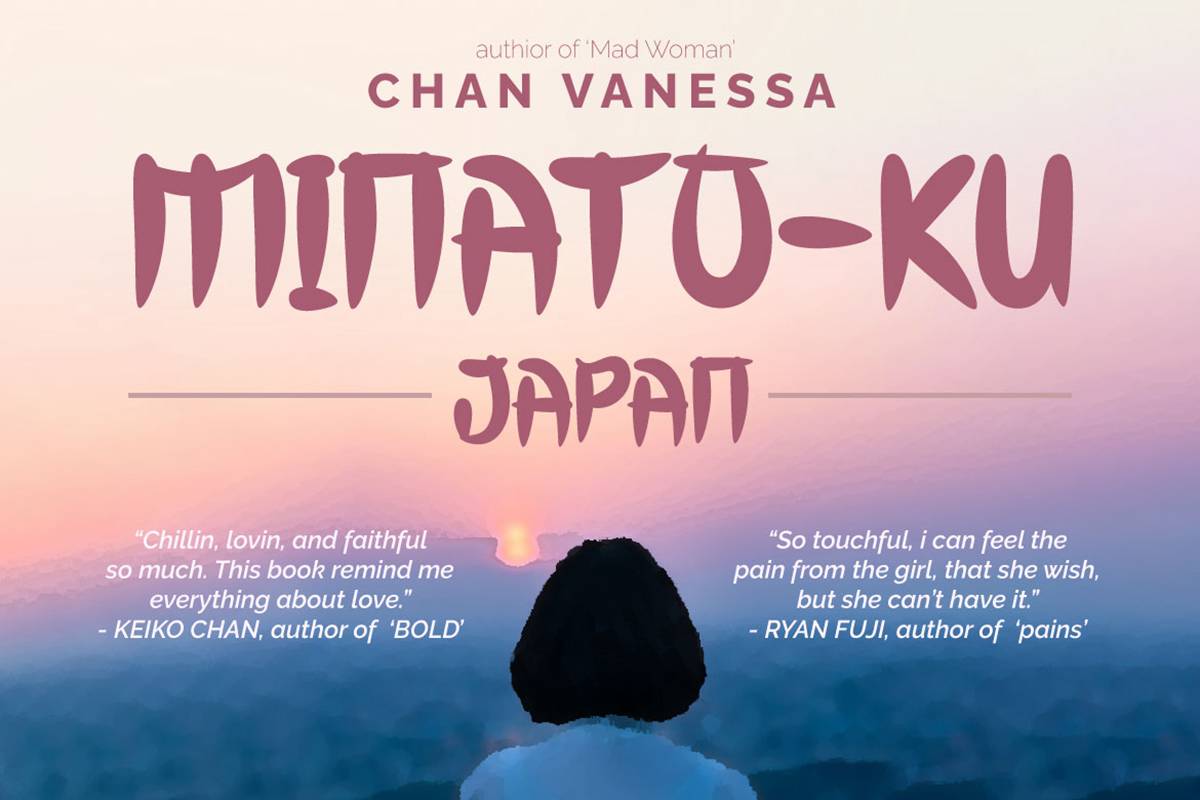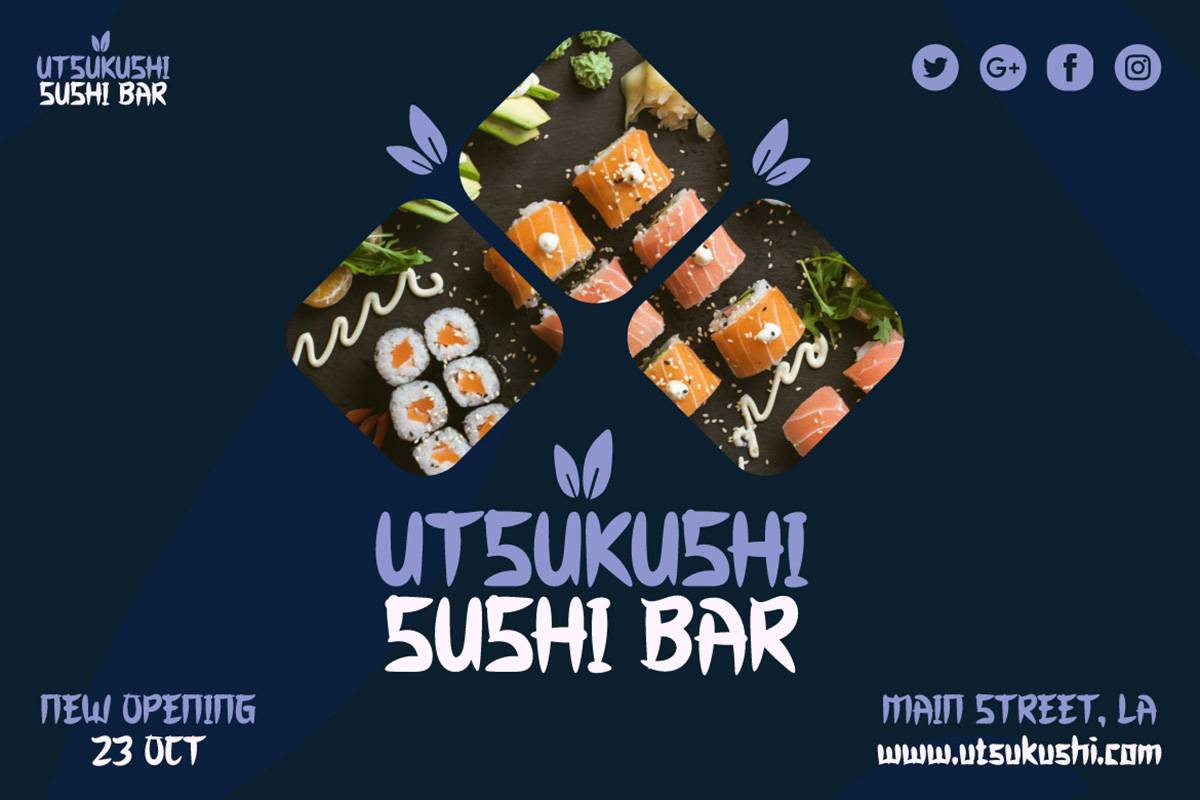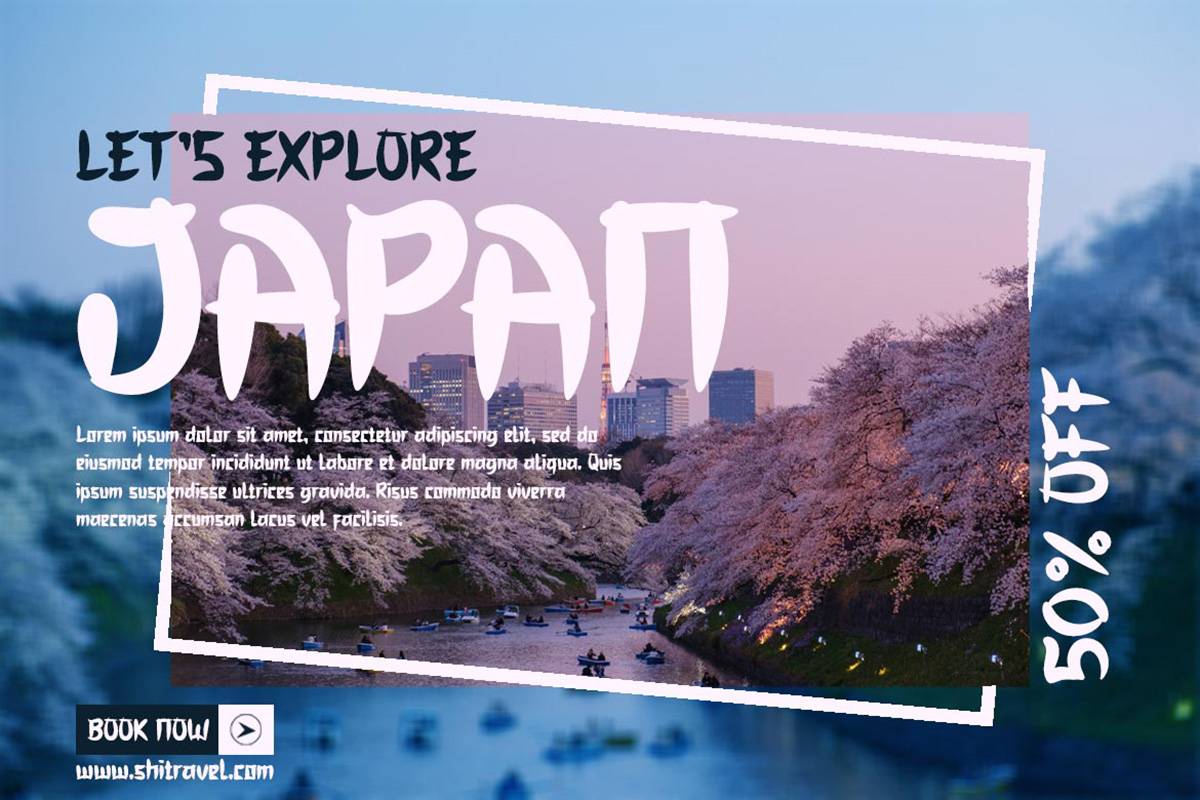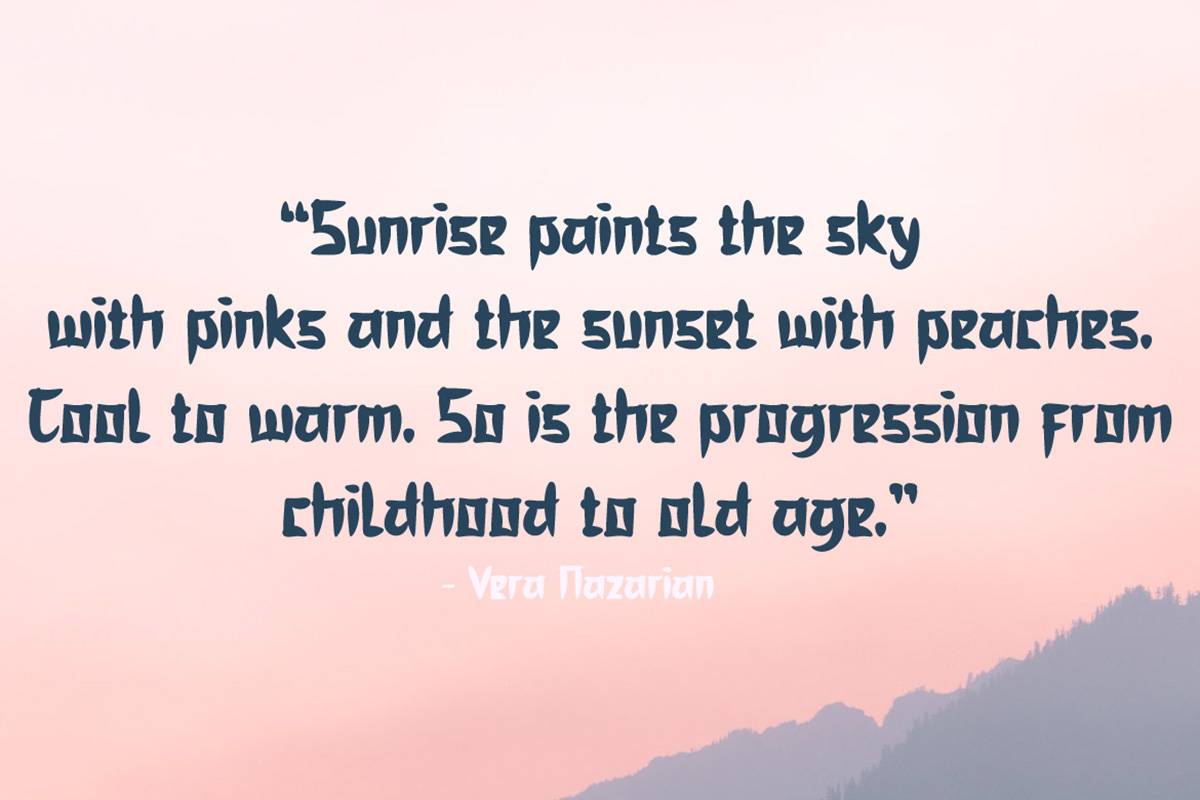
Jumiko is a playful and bold handwritten font with a strong, casual character. Its thick, slightly irregular strokes and distinctive shapes give it a warm, friendly feel, making it ideal for creative branding, fun headlines, and informal designs that want to stand out with personality and charm. This font works well in projects that need a welcoming, lively touch without sacrificing legibility.
Jumiko Font
About Jumiko Font